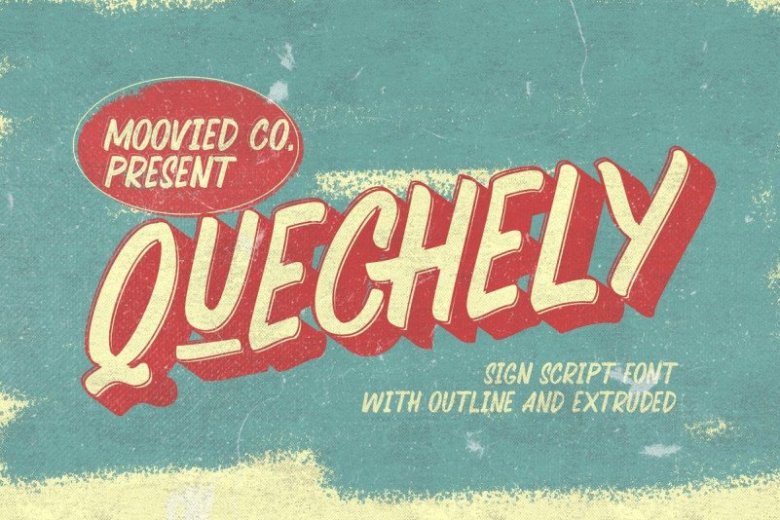
Quechely Sign Retro Font
This a new layered bold script font .Belyard inspired by bold script logotype and retro font. It’s designed and shared by Moovied Co.. Introducing Quechely Sign Retro Font.
A new font layer for the needs of signs with a retro design style, designed with a bold script that comes with 3 styles, lines and shadows, this font was designed by retro typographic design styles in the 60s.
You don’t need to make shadows, this font is designed with a layer font to save your time making designs with retro style 60’an